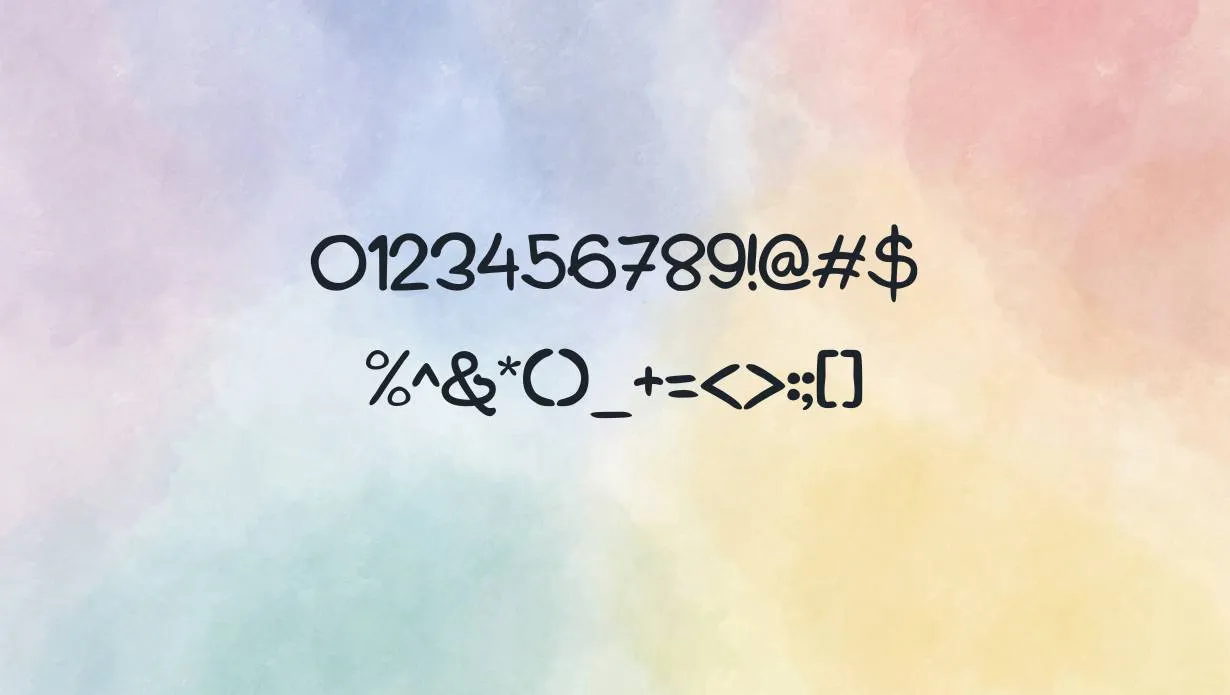
kidplay Font lies under the script font family with a touch of handwritten font family as well. This unique and appealing typeface was designed by an Indonesian typographer Ahmad Zulfikar Ali and ZetDesign Foundry released this font.
This font contains punctuation, uppercase letters, numerals, and lowercase letters. You can combine this amazing typeface with an assistant font to give a unique touch to your project.
Kidplay Font Info
Name | kidplay Font |
Designer | Ahmad Zulfikar Ali |
Style | Script |